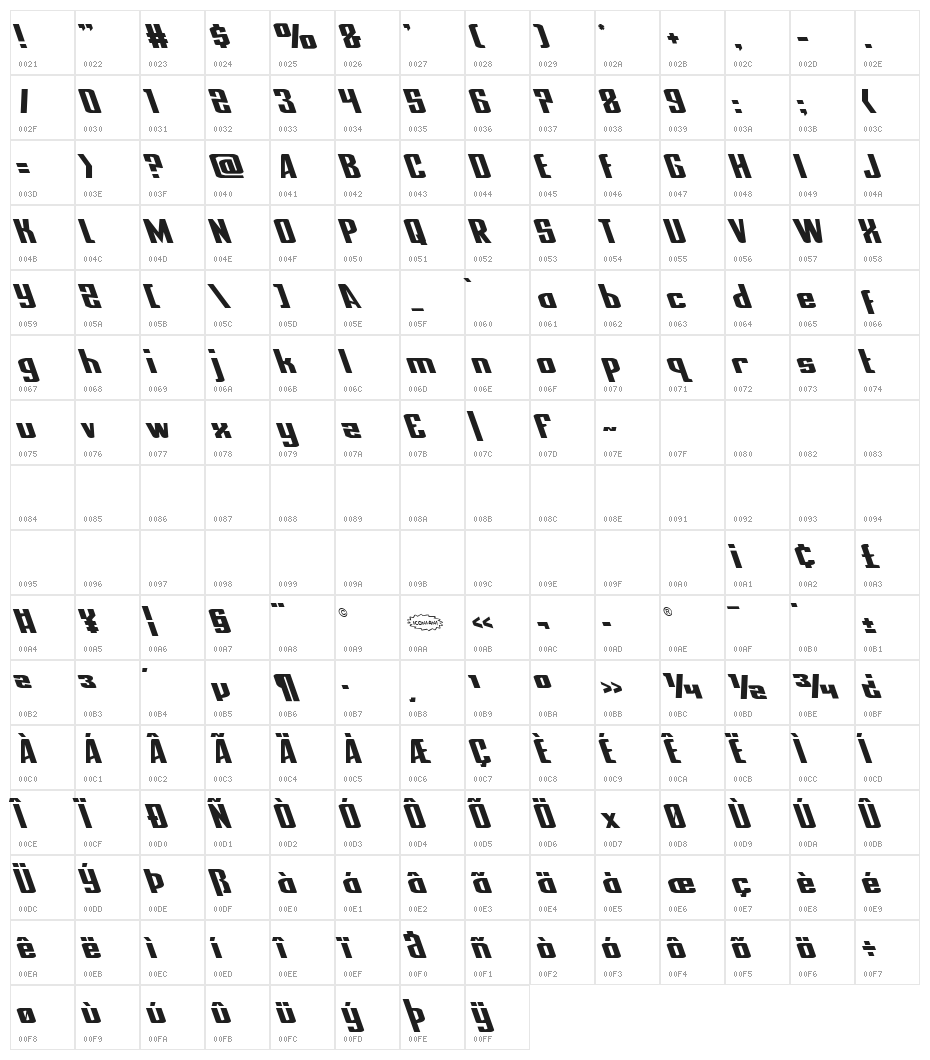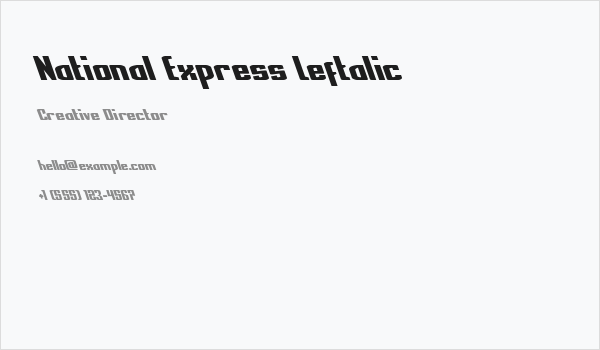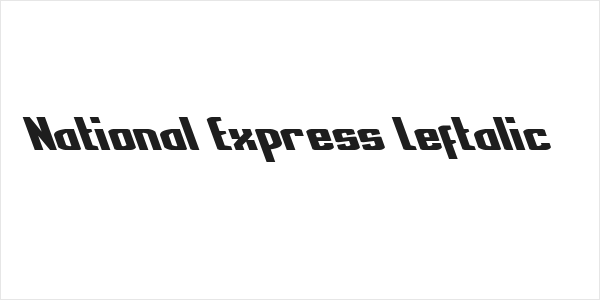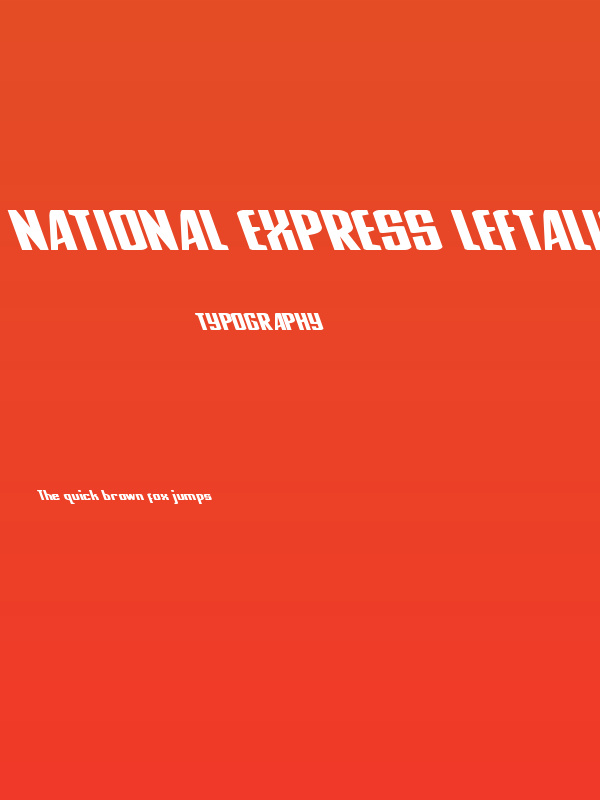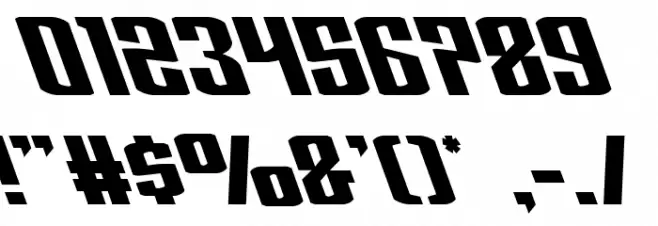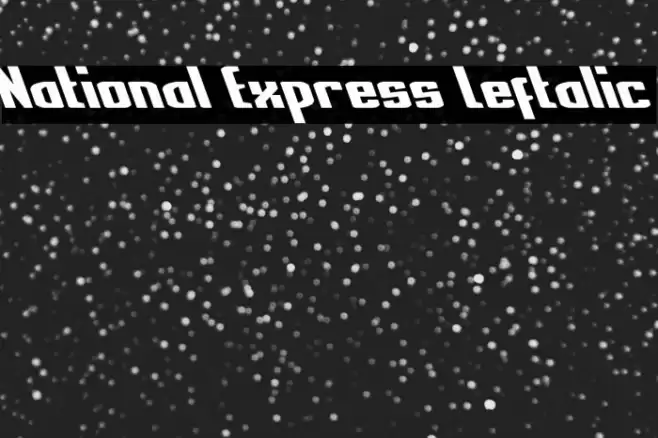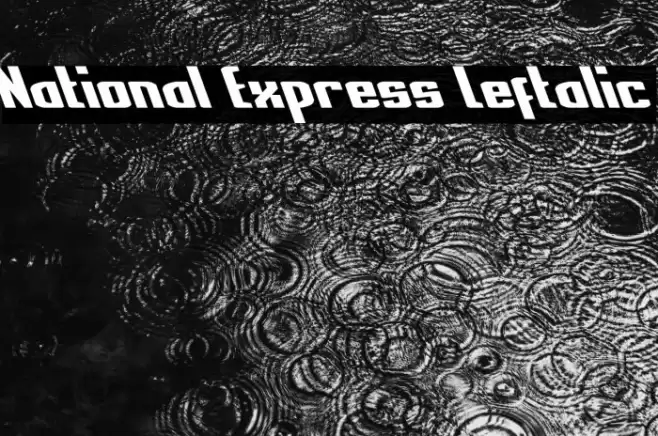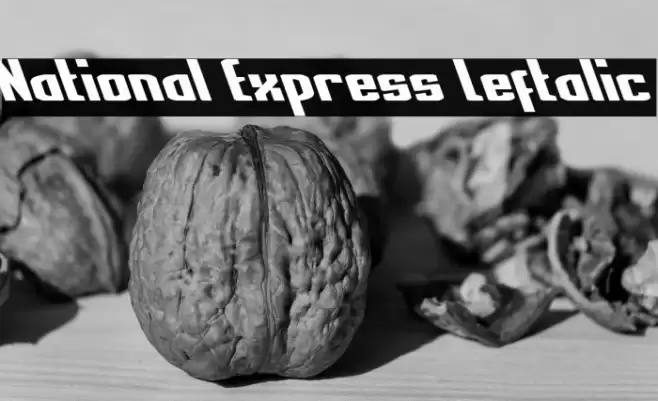
National Express Leftalic Font
This font features a bold and dynamic style with a distinct slant to the left, giving it a sense of motion and urgency. The characters are robust and angular, with sharp edges and a strong presence. The uppercase and lowercase letters maintain a consistent weight, contributing to a cohesive and impactful appearance. Numbers and special characters are designed to match the boldness and angularity of the alphabet, ensuring uniformity across all text. The overall design is modern and assertive, suitable for making a strong visual statement.
| Proposed Projects | Ideal for branding, sports team logos, dynamic posters, and any project requiring a strong, energetic typeface. |